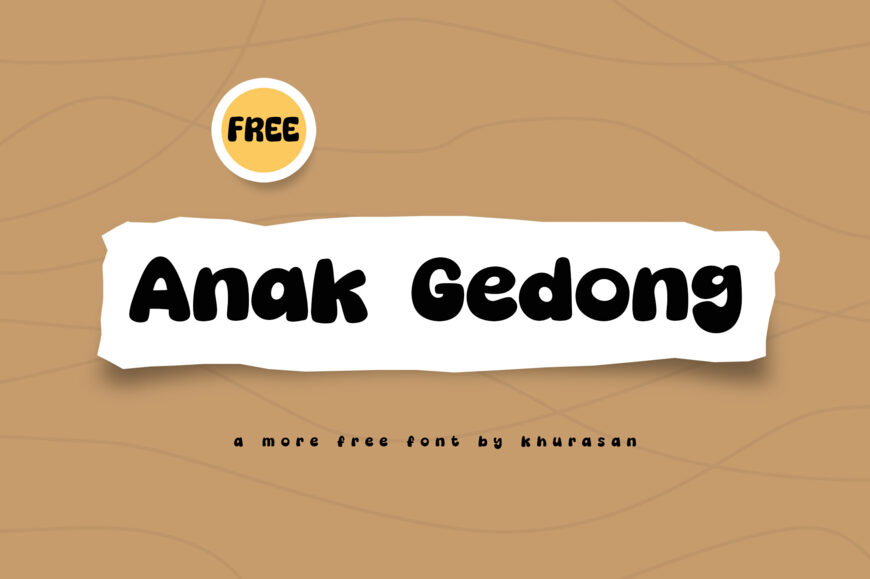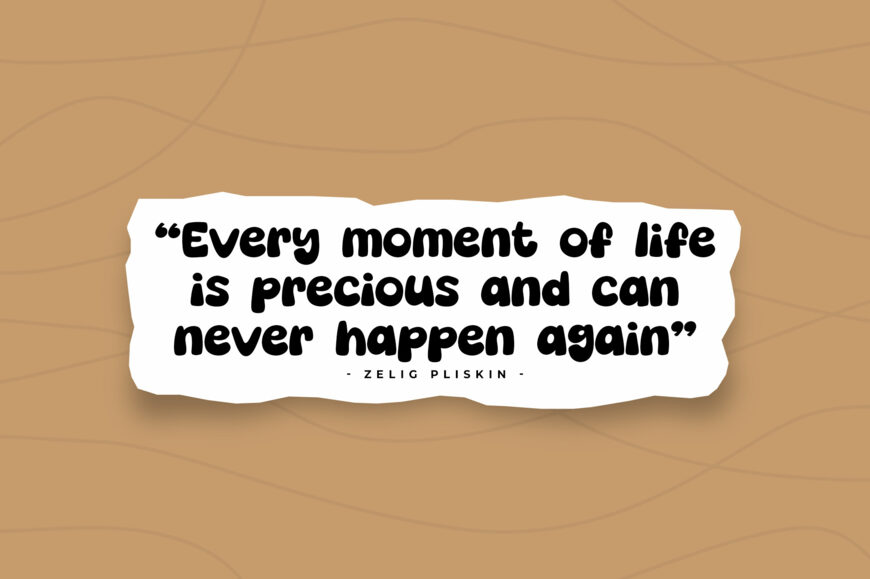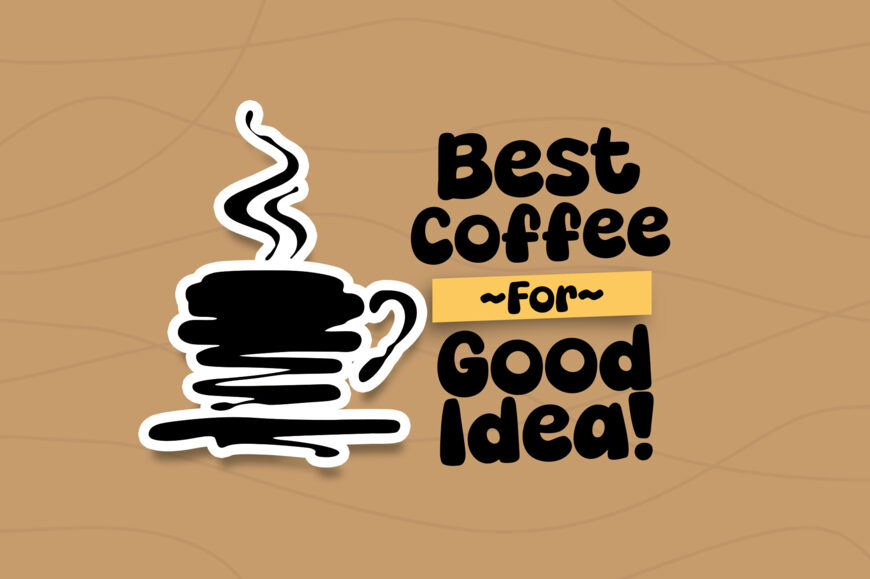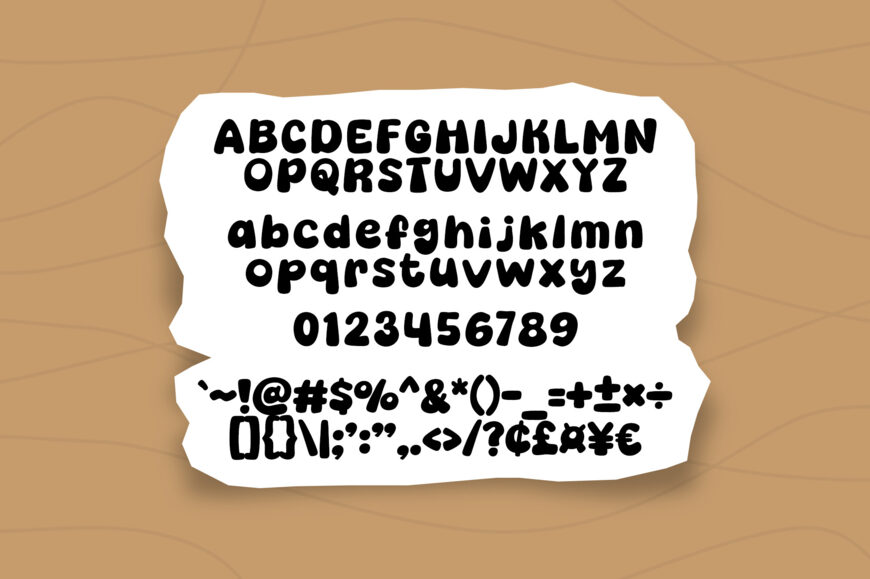
Anak Gedong Font is a playful display typeface designed by Khurasan, featuring bold, rounded letterforms with a cheerful and friendly personality. Its cute bubble-inspired style makes it a great choice for children’s designs, posters, branding, packaging, festive graphics, summer projects, and eye-catching headlines.